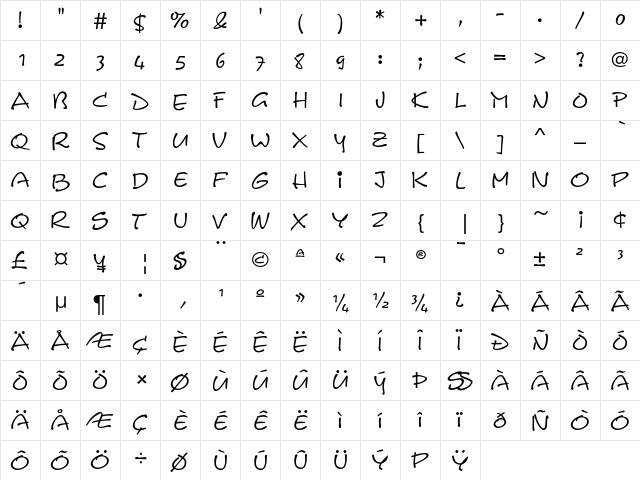
LeAsterixEF Regular
Design Context for LeAsterixEF Typeface
LeAsterixEF is a composed and adaptable typeface that performs quietly and consistently across a wide range of design contexts.